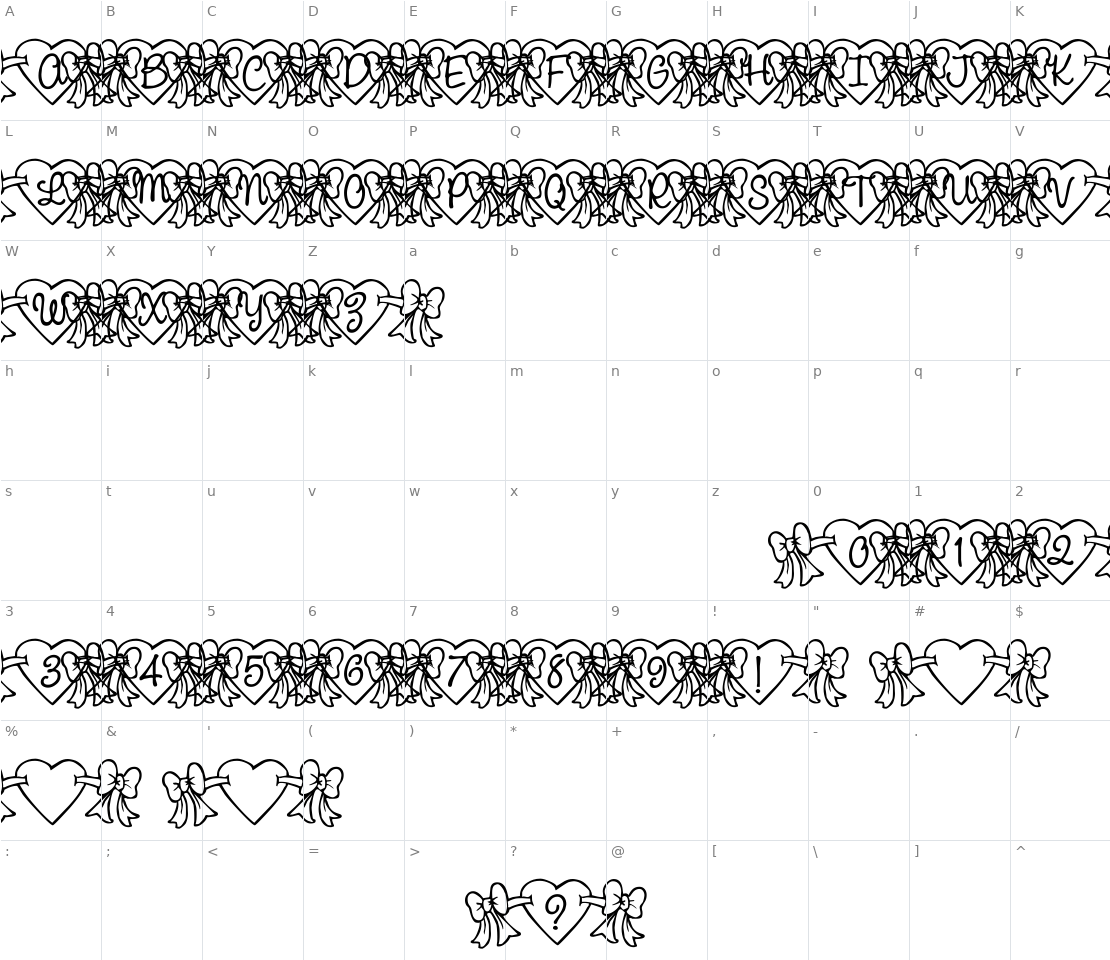
RMBowhrt
RMBowhrt is a decorative ornaments font by Renny Murray filled with bows, hearts, and ribbons in an outline style. The characters have a whimsical, romantic quality that makes them a natural fit for Valentine's Day cards, wedding stationery, and gift-related design where you need charming little accents without reaching for clip art.